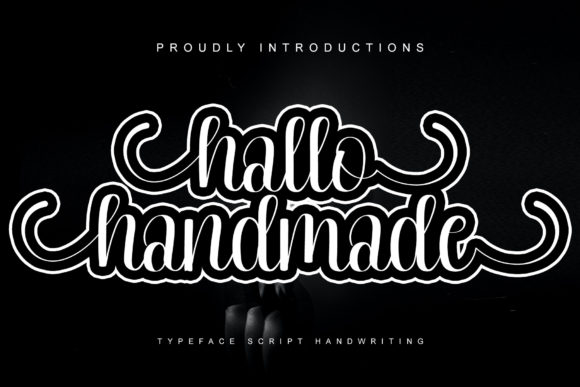
Introducing Hallo Handmade Font, the enchanting script font that will transform your designs into masterpieces. This beautiful and flowing font exudes a timeless elegance that will make your creations stand out from the crowd.
Indulge in its incredibly distinct style, perfect for crafting alluring business cards, eye-catching logos, and captivating social media posts. The gentle curves and graceful swashes of Hallo Handmade Font will lend an air of sophistication to any project you undertake.
Immerse yourself in a world of boundless creativity as you explore the myriad possibilities that Hallo Handmade Font offers. Its versatility knows no bounds, making it the ideal choice for designers, crafters, and artists of all levels. Whether you're creating stunning invitations, enchanting wedding stationery, or simply adding a touch of flair to your personal projects, Hallo Handmade Font will elevate your designs to new heights.
Don't settle for ordinary fonts that fail to capture the essence of your vision. Embrace the extraordinary with Hallo Handmade Font. Its beauty and versatility will ignite your imagination and empower you to create designs that resonate with your audience.